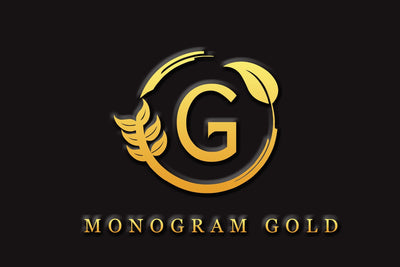
Monogram Gold
MONOGRAM GOLD Is a monogram font that is elegant and simple but still authentic. This font is perfect for logo, branding, crafting, social media posts, business cards and other creative projects. The font is amazing when displayed in 3D. This font makes it easy for you to create projects creative